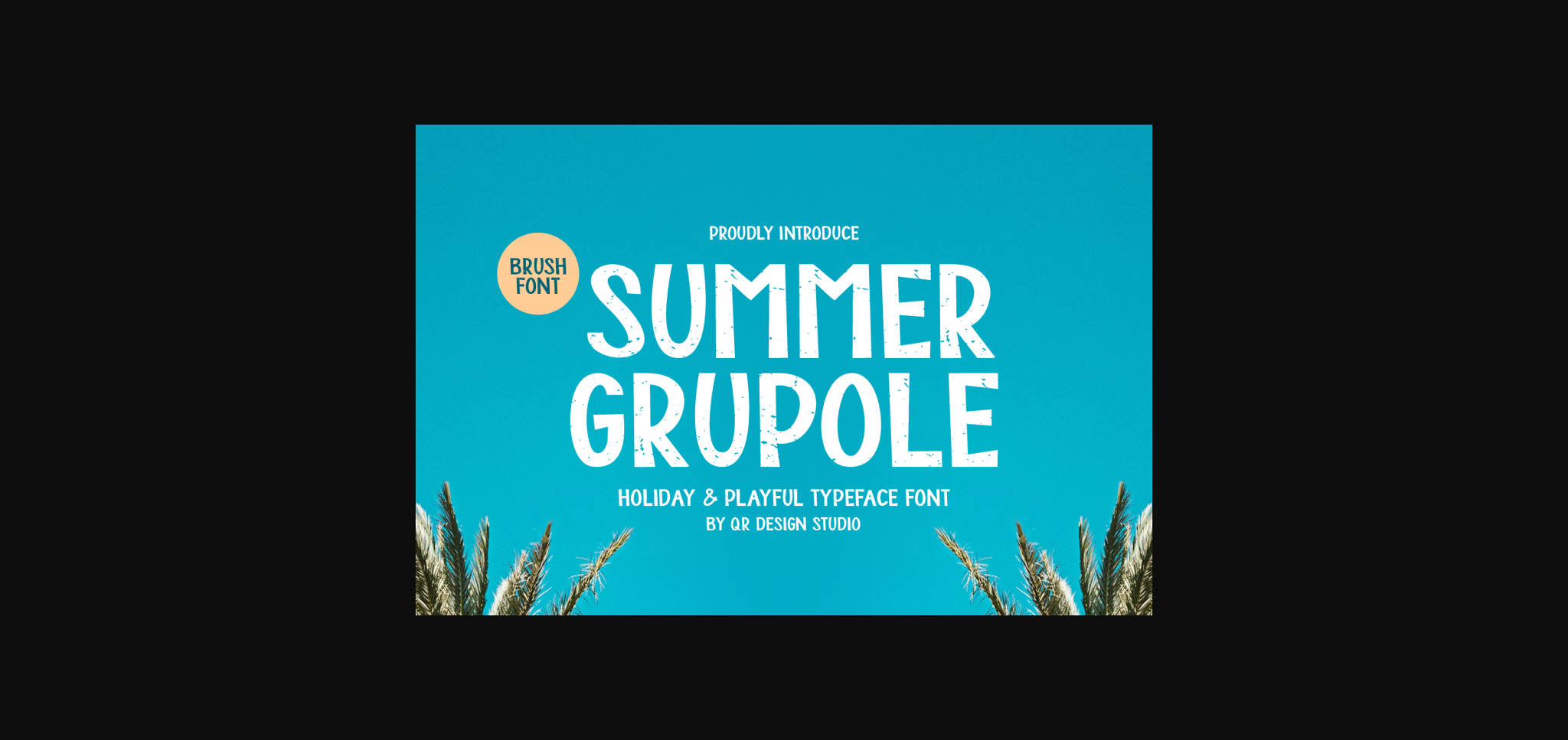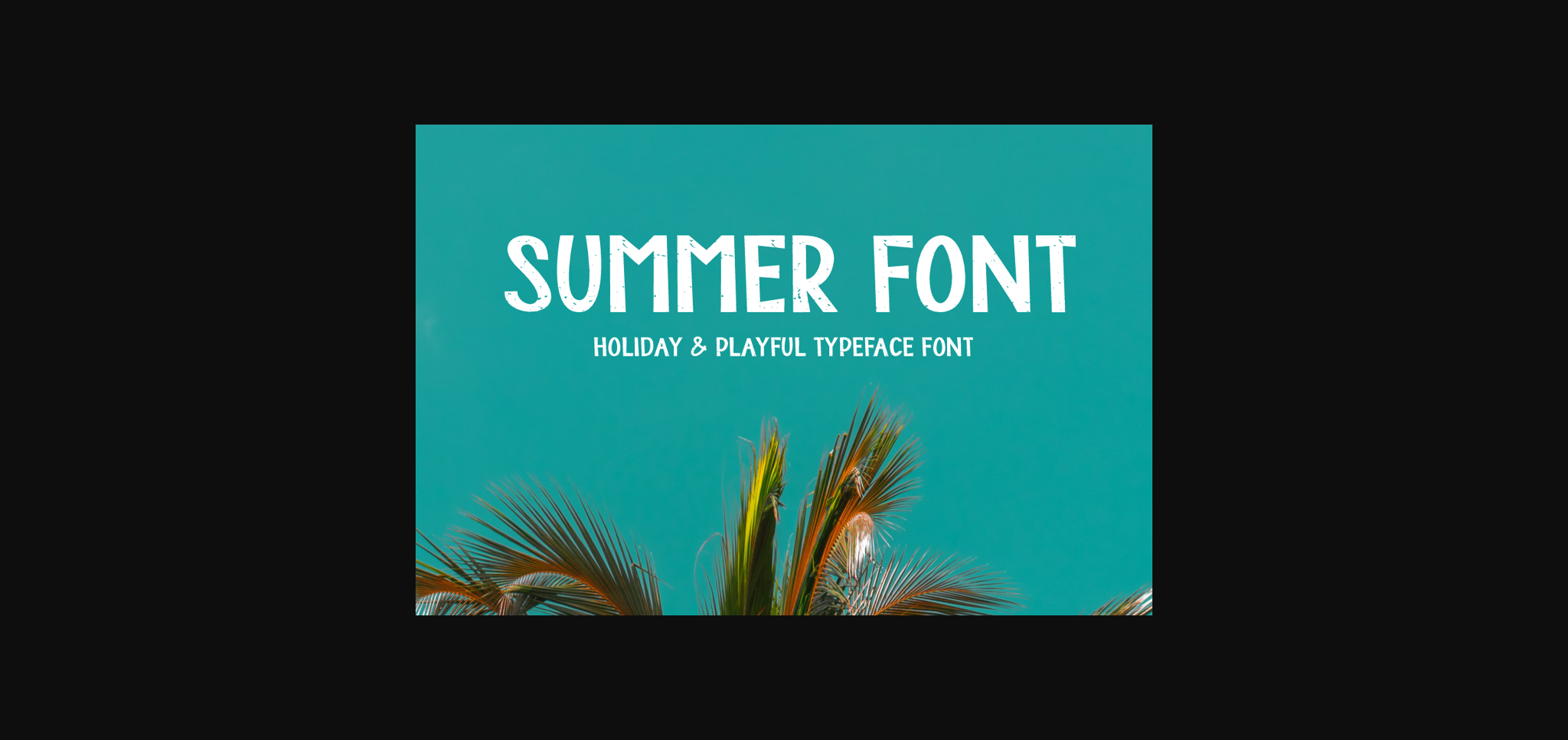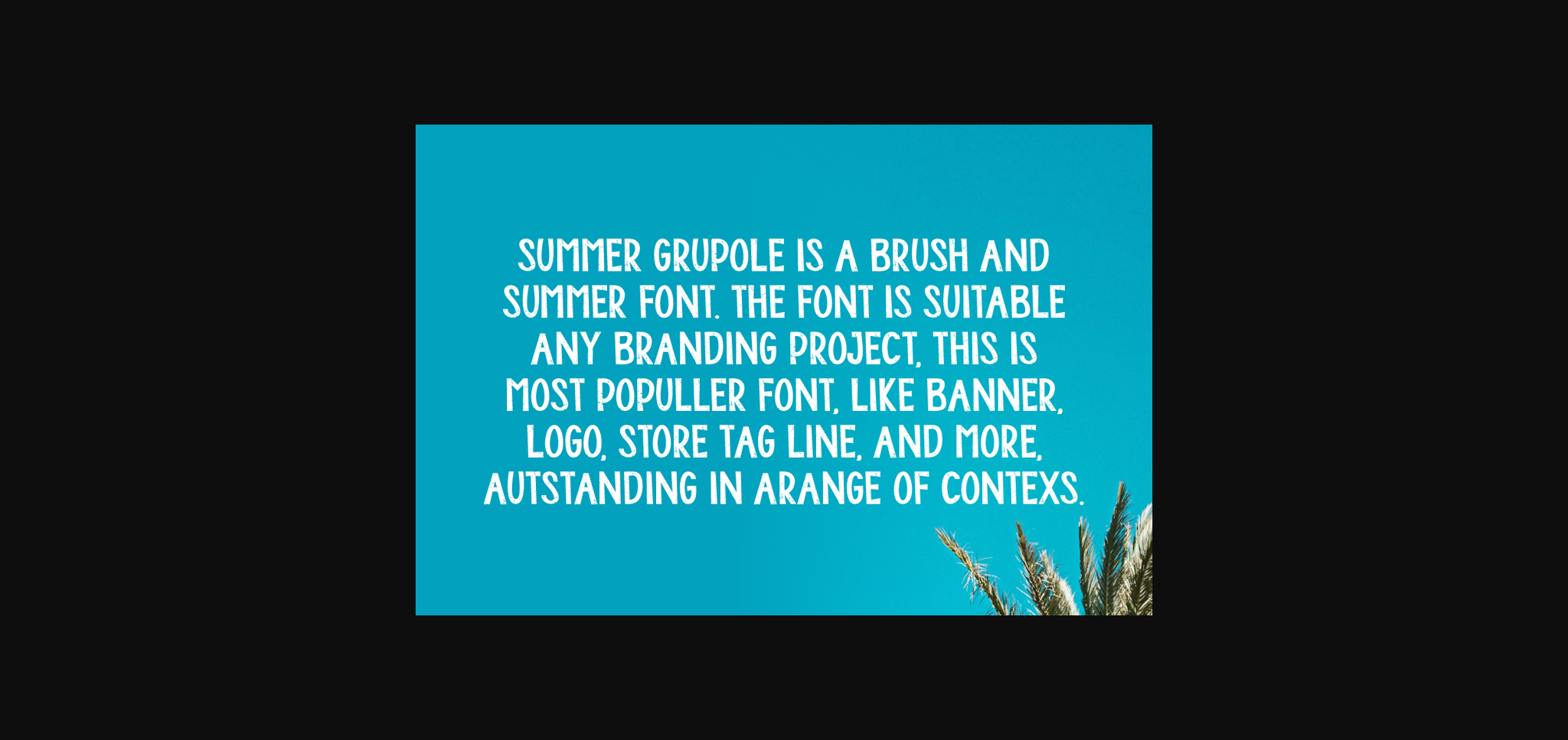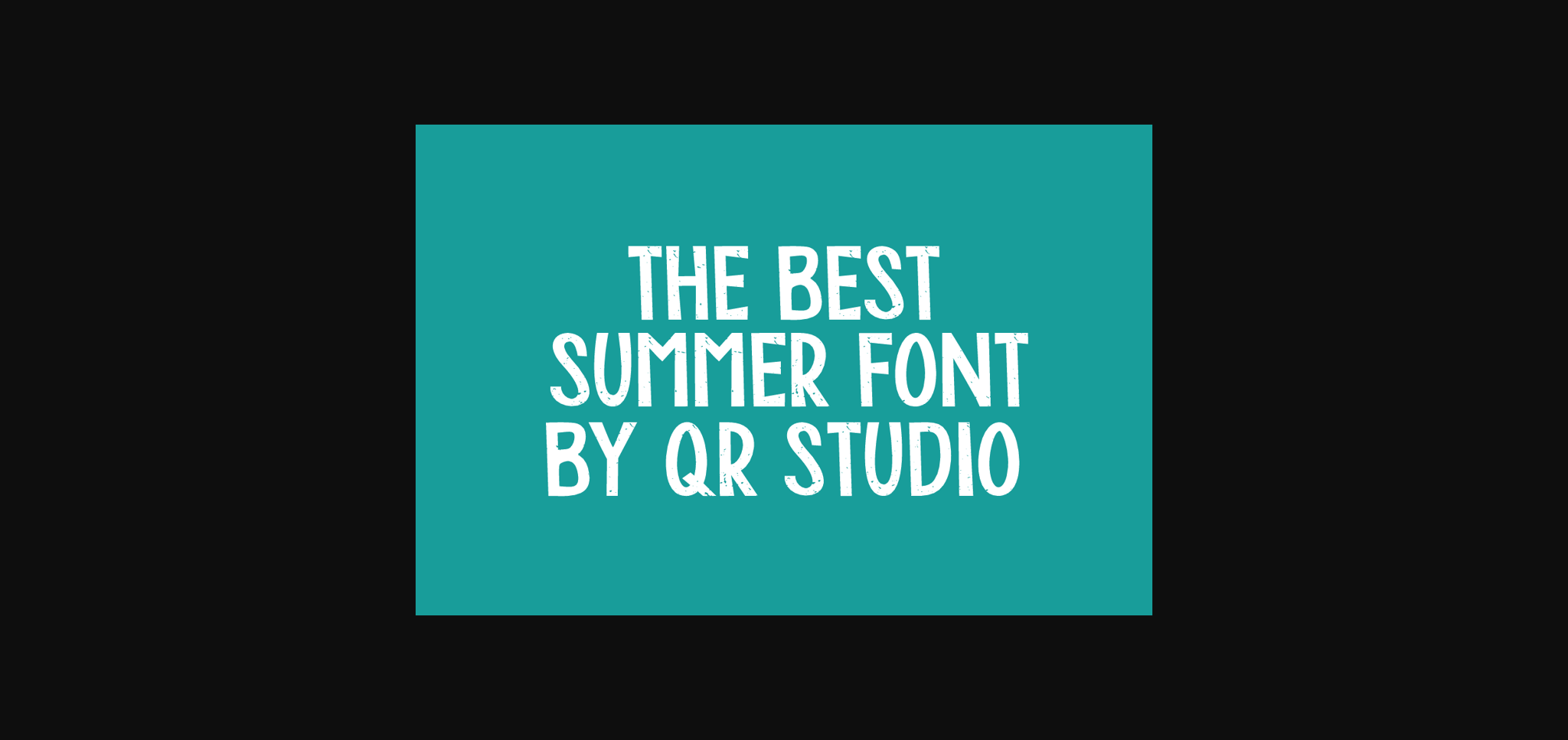
About Summer Grupole Font
Summer Grupole is a delightful sans-serif font exuding charm and clarity. Its clean lines and friendly curves evoke a sense of warmth and approachability, perfect for conveying cheerful messages. With its playful yet neat design, Summer Grupole adds a touch of joy to any project, from branding to packaging.